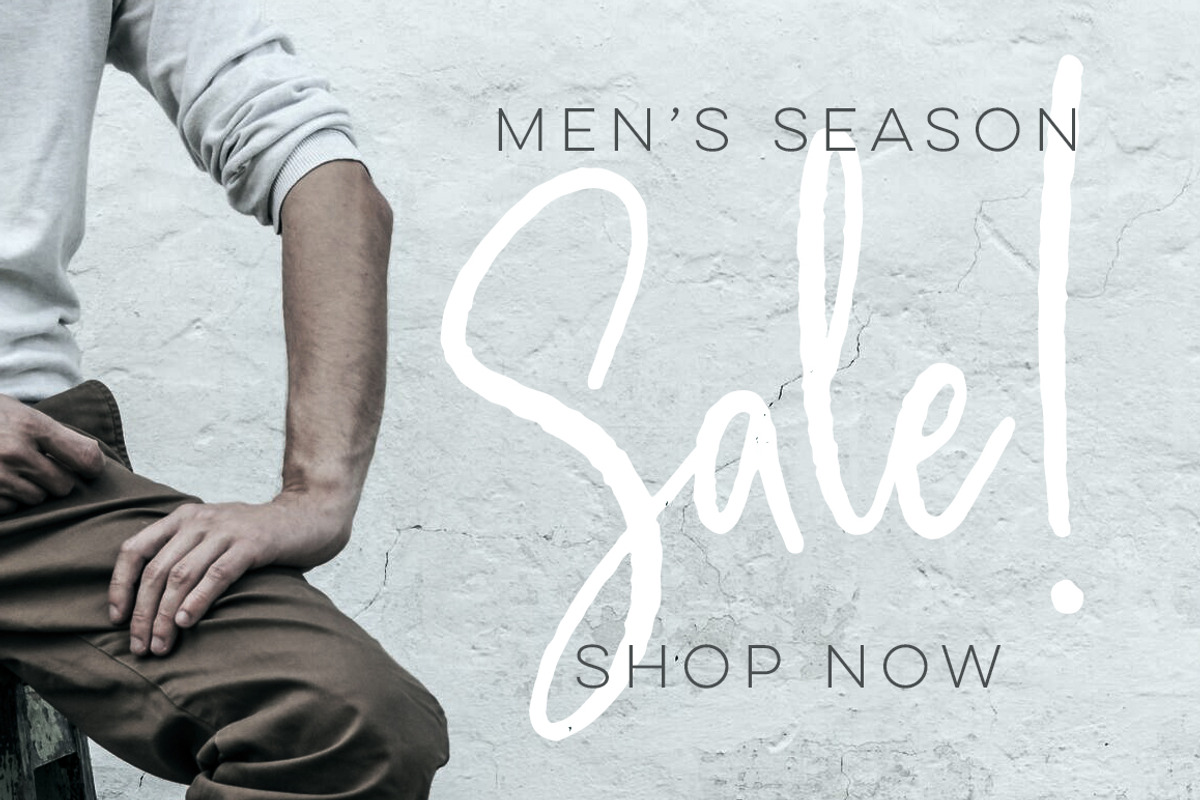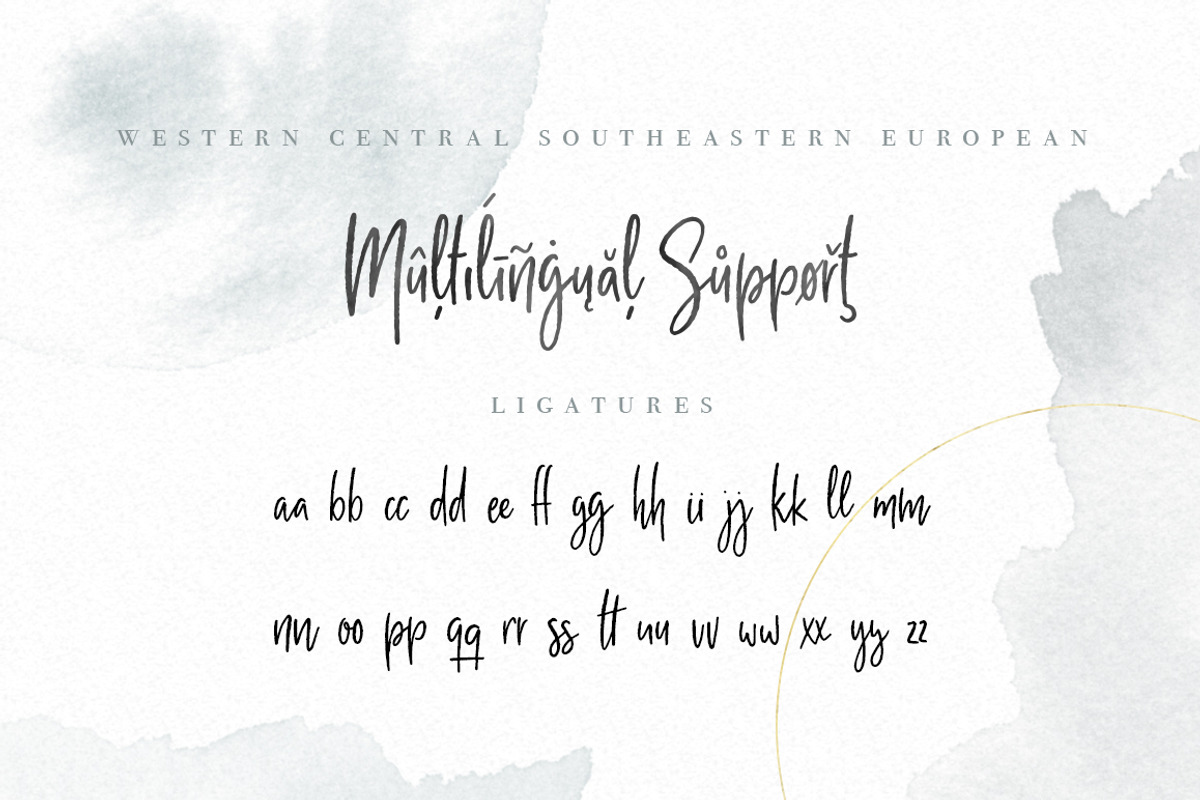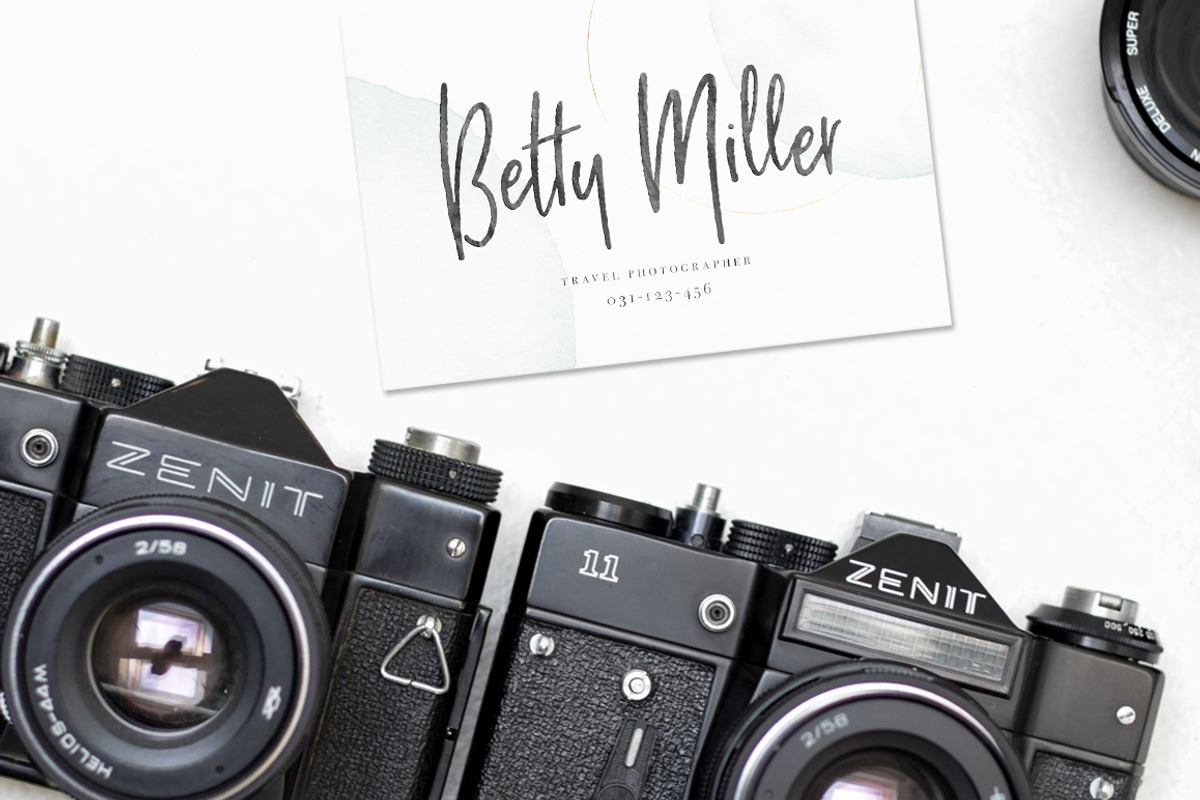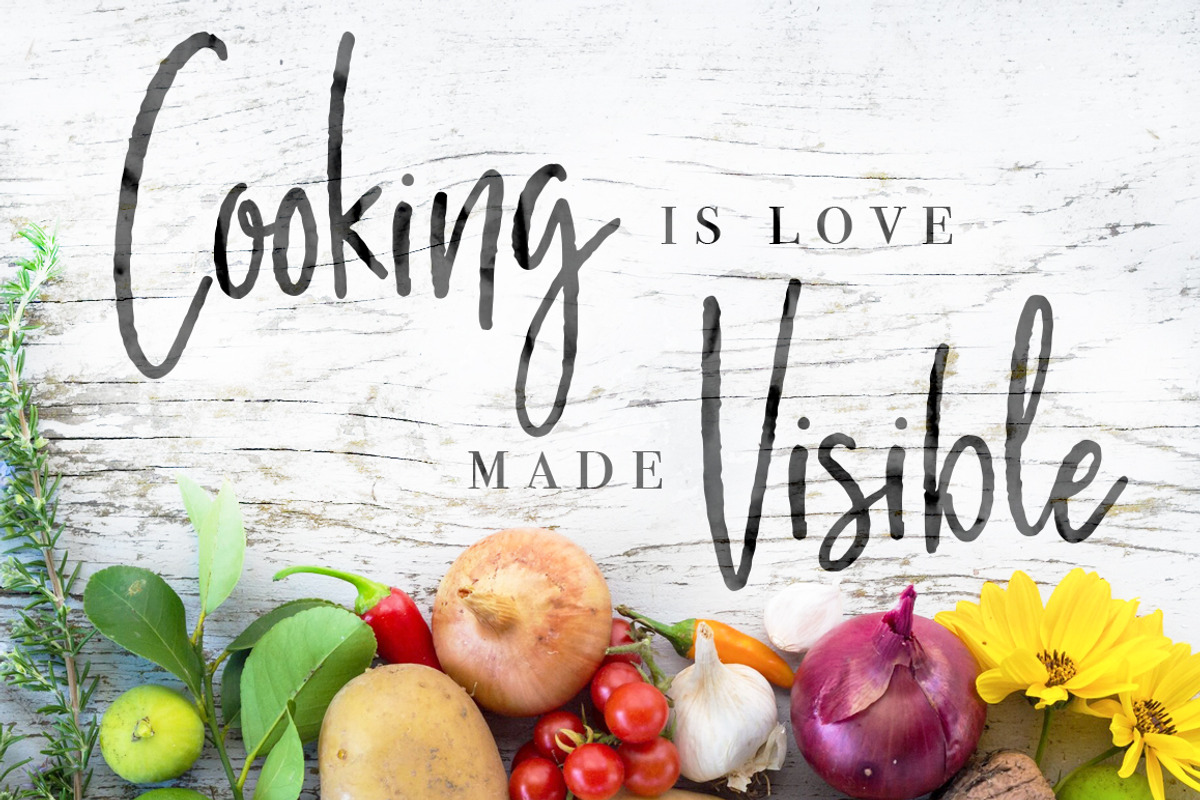
Milano Sky handwritten Script font
★ Milano Sky ★ A signature script font with a fancy rough edge! ★
Meet Milano Sky, a fancy font that is perfect for your eye-catching headers, Branding, Catch phrases and your other publishing projects.
Ligatures are added for all double lowercase glyphs aa to zz.
- All Western European, Central European and Southeastern European latin glyphs are included.
- Ligatures are added for all double lowercase glyphs aa to zz.